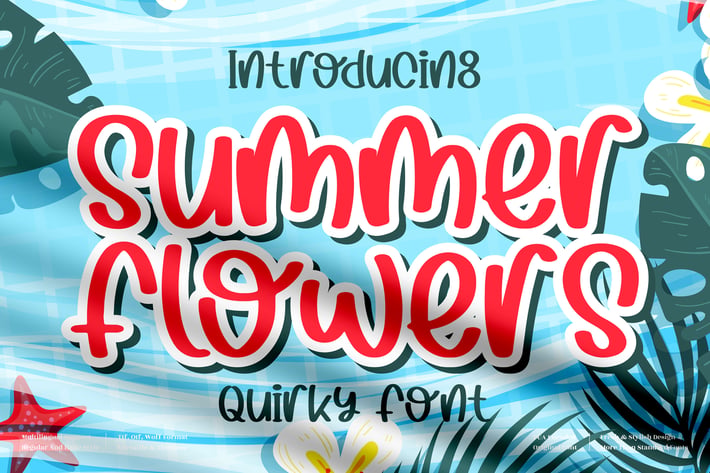
Summer Flowers Quirky Font
Summer Flowers Quirky Font is a cheerful and playful typeface designed to bring joy and creativity to your projects. With bold strokes and fun letterforms, this font adds a vibrant and lighthearted personality to any design. Perfect for capturing the essence of summer vibes, it works beautifully in both digital and printed creative works. Its quirky and dynamic style makes it stand out while still being easy to read.
+ Playful and bold letterforms
+ Quirky handwritten display style